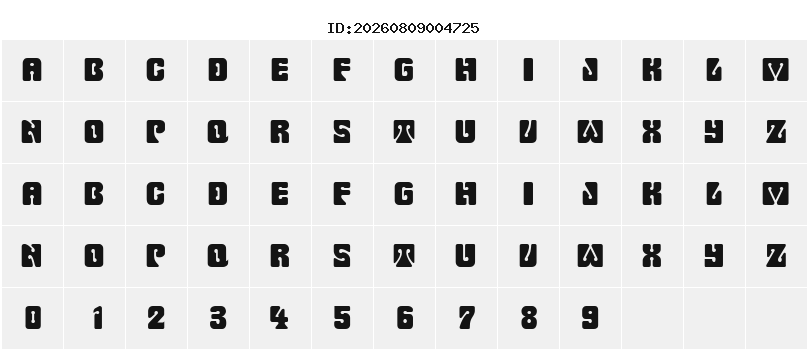
About Pinocchio DB.ttf
Pinocchio DB.ttf is a modern, elegant sans-serif font designed for ultimate readability and visual harmony. Perfect for branding, headlines, web design, and print materials.